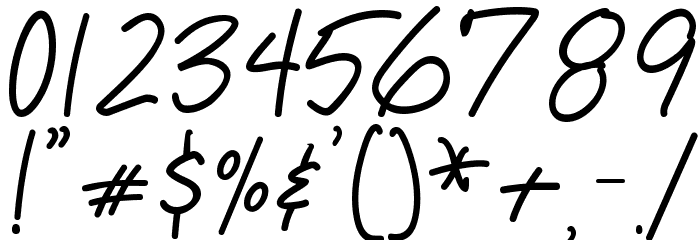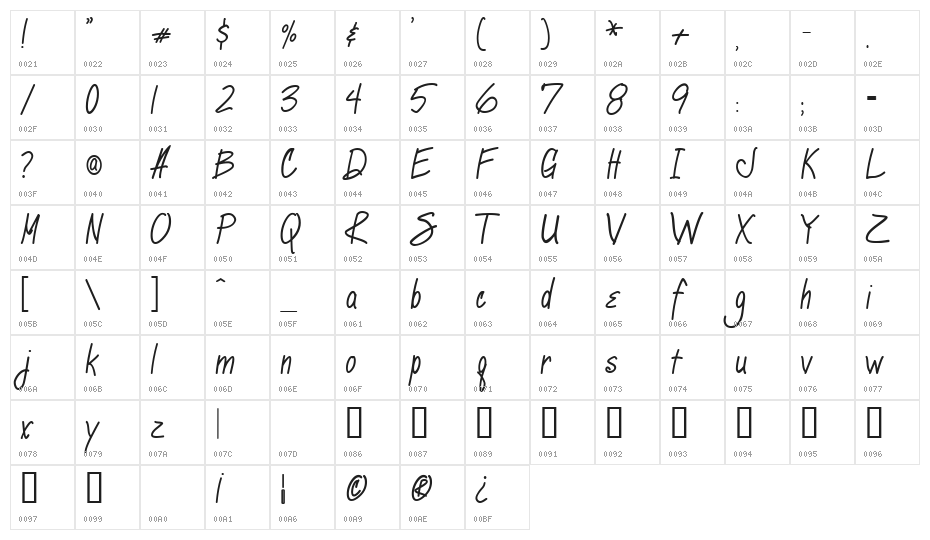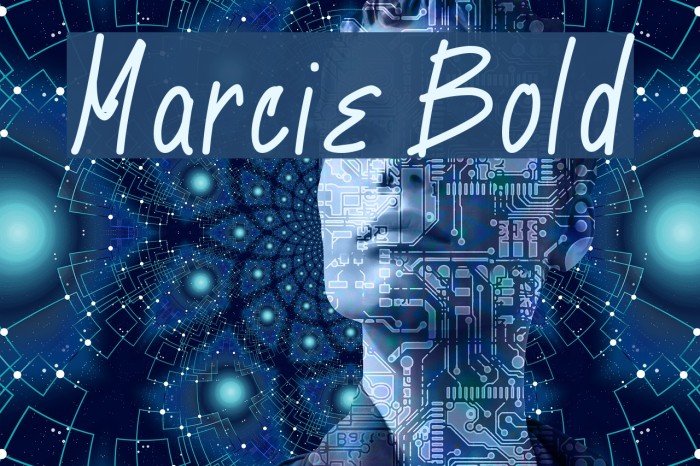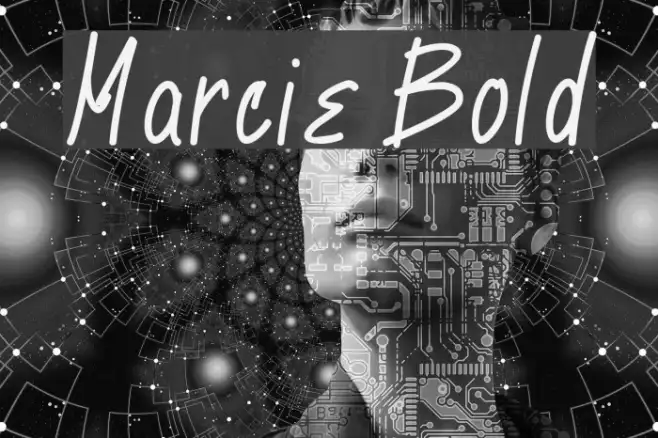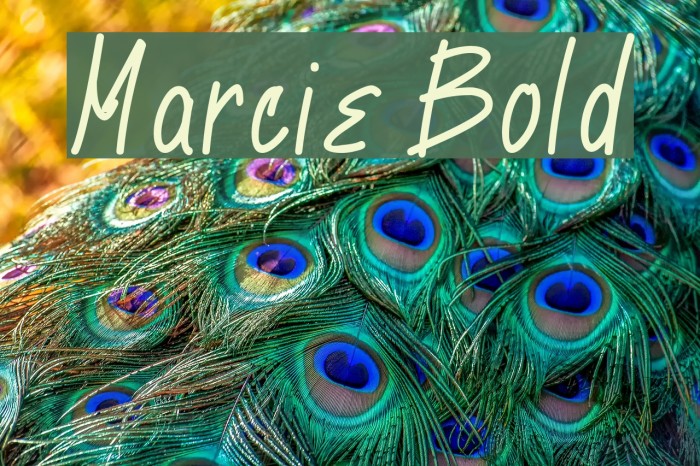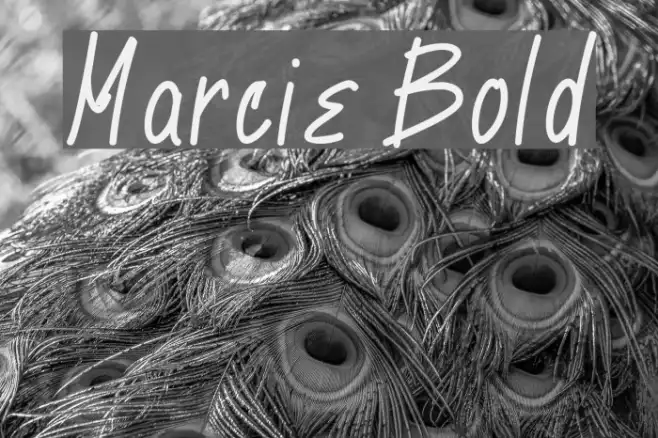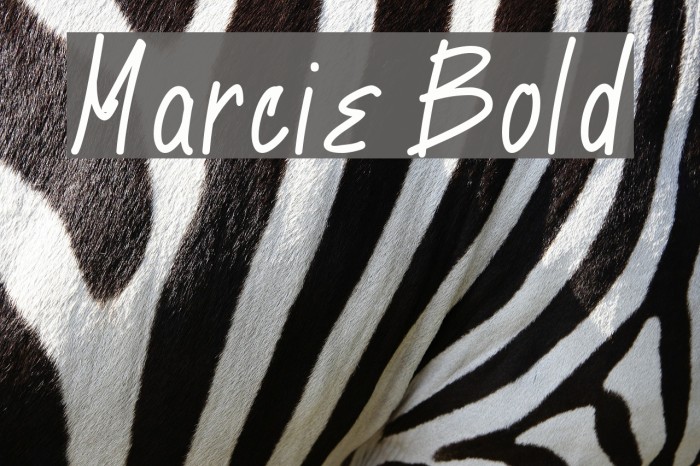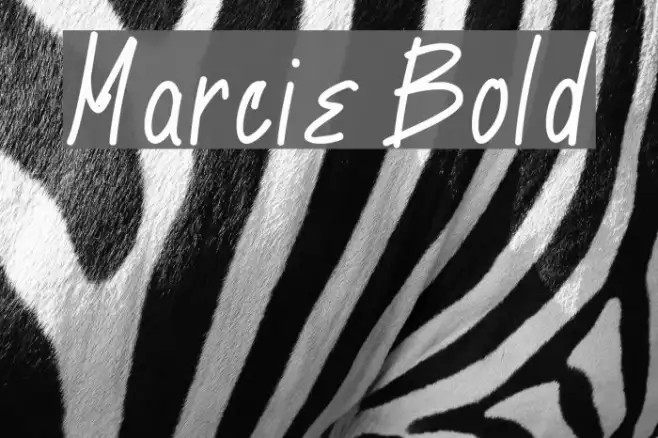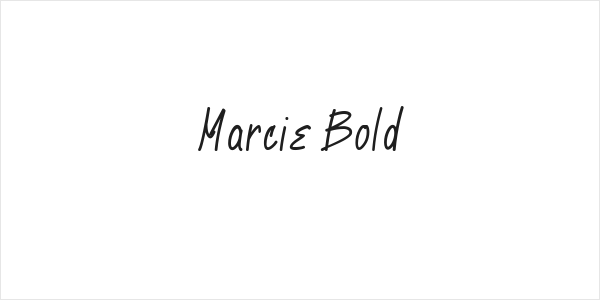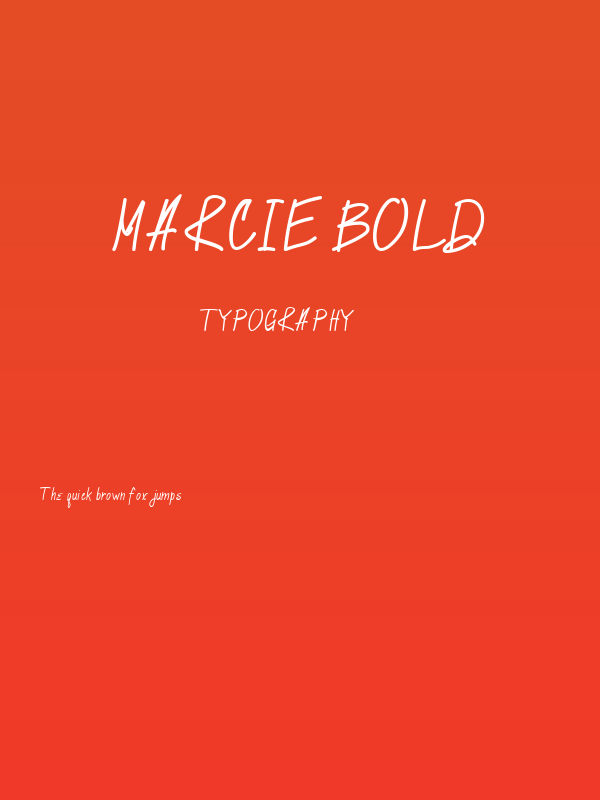
Marcie Bold Font
Marcie Bold Description
This font exudes a casual and handwritten style, characterized by its fluid and slightly irregular strokes that mimic natural handwriting. The uppercase and lowercase letters maintain a consistent flow, with a slight slant that adds to its informal charm. The numerals and special characters follow the same handwritten aesthetic, ensuring uniformity across all glyphs. The overall appearance is approachable and friendly, making it suitable for projects that require a personal touch.
| Use Case | Logos, Headlines, Informal text |
| Proposed Projects | Ideal for personal invitations, greeting cards, casual branding, and social media graphics. |